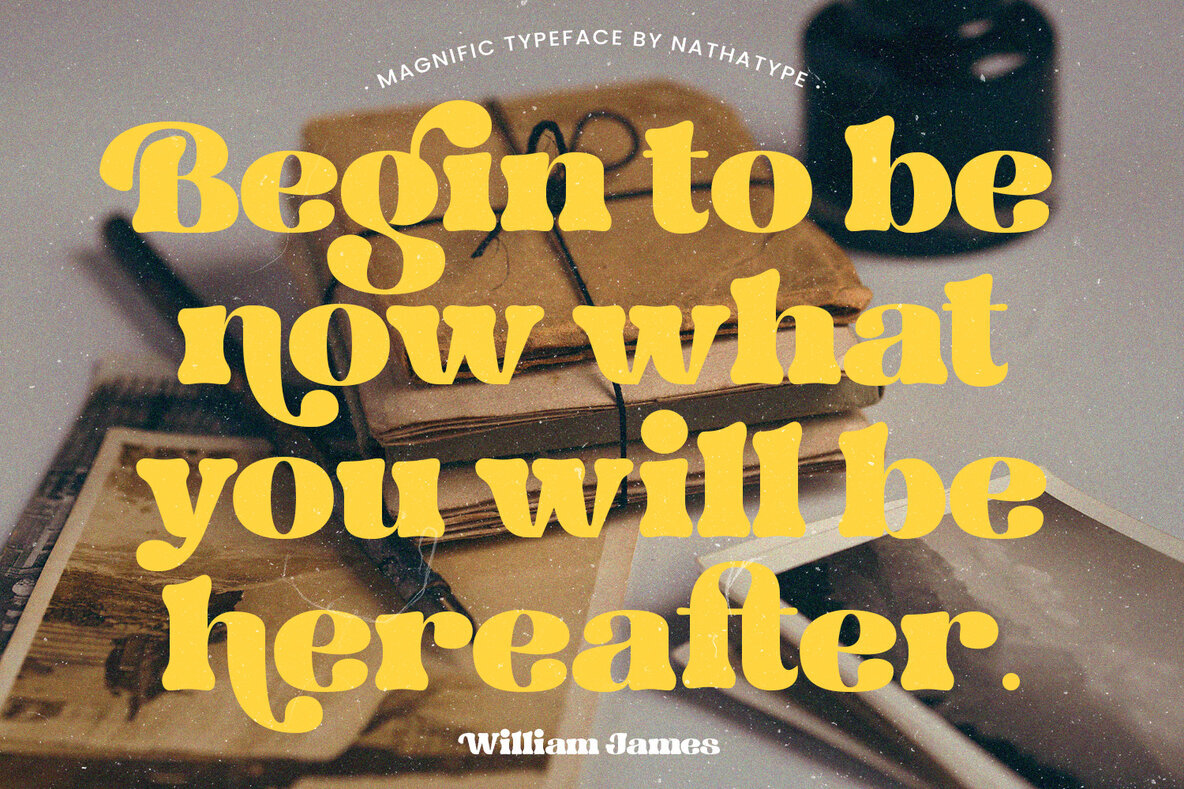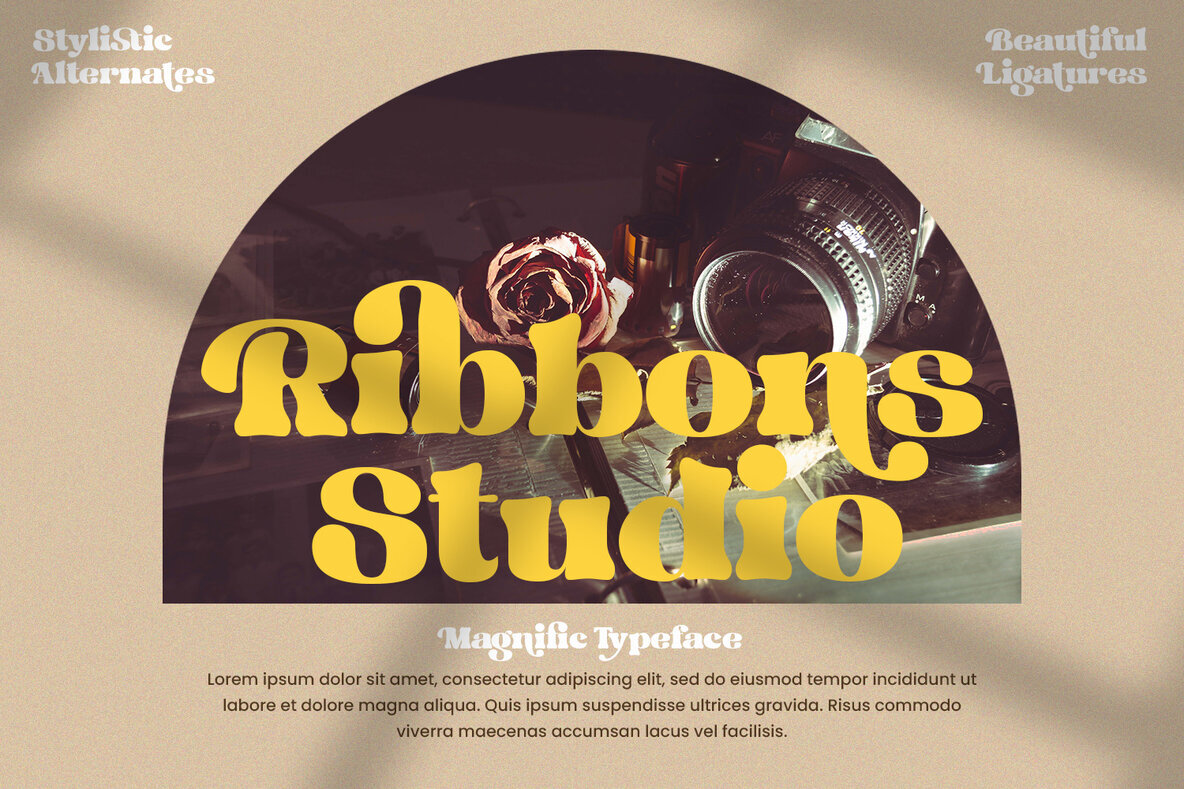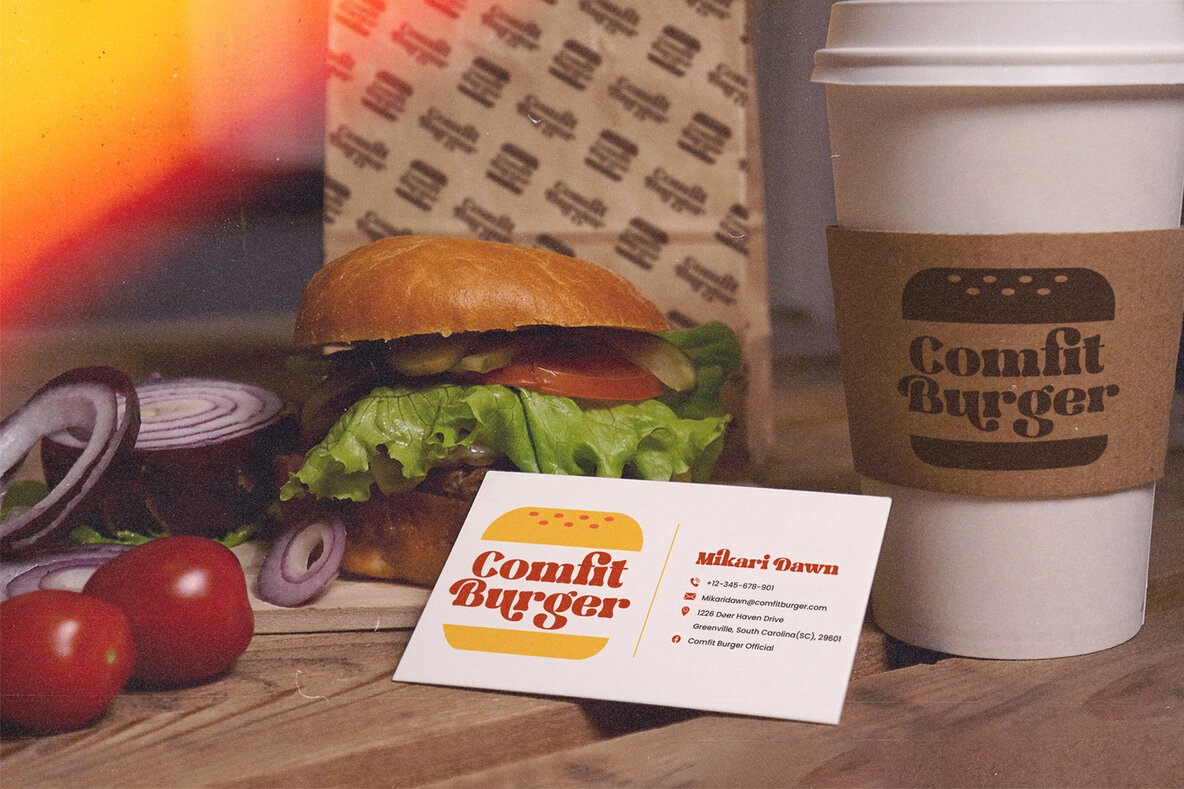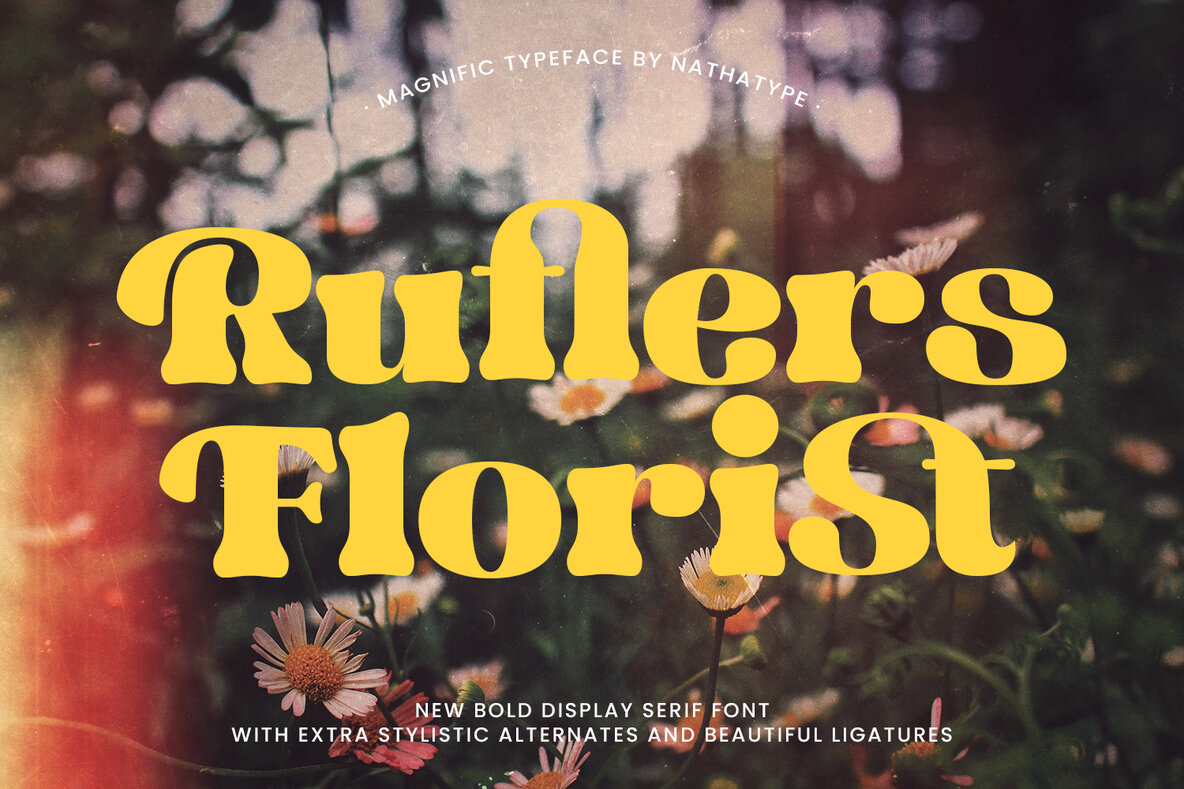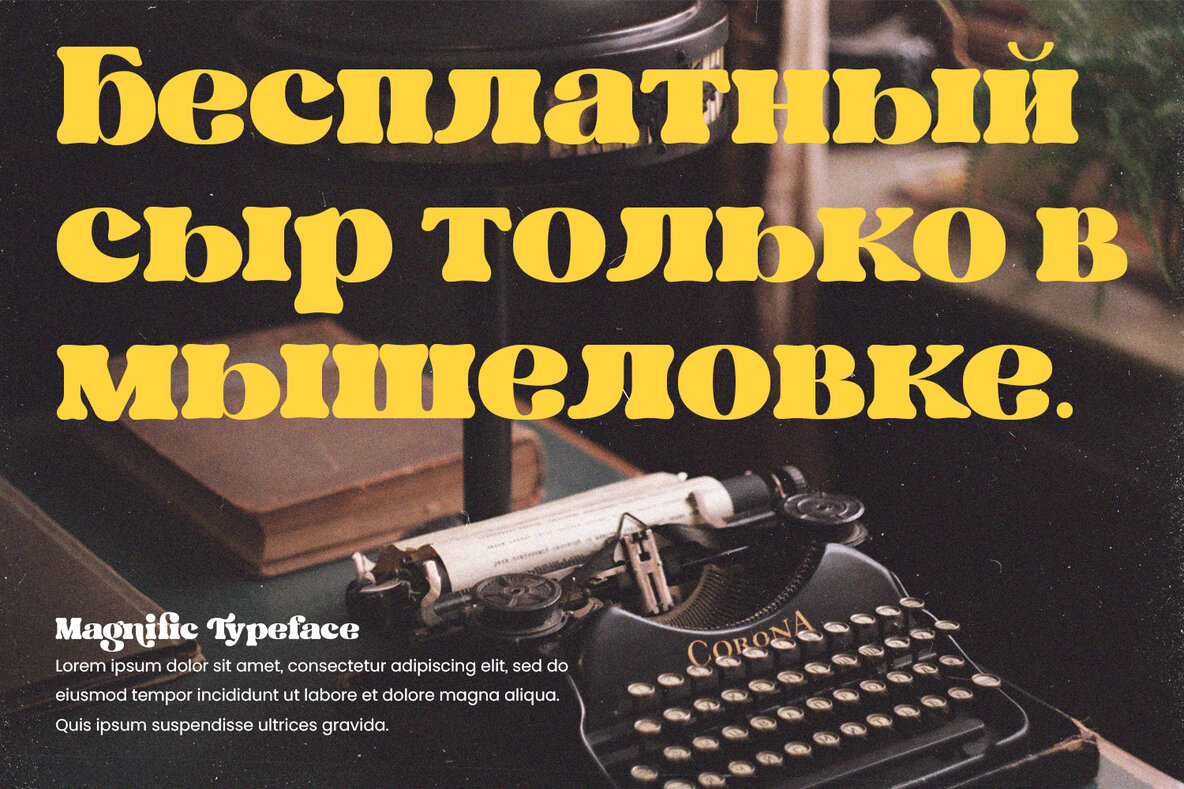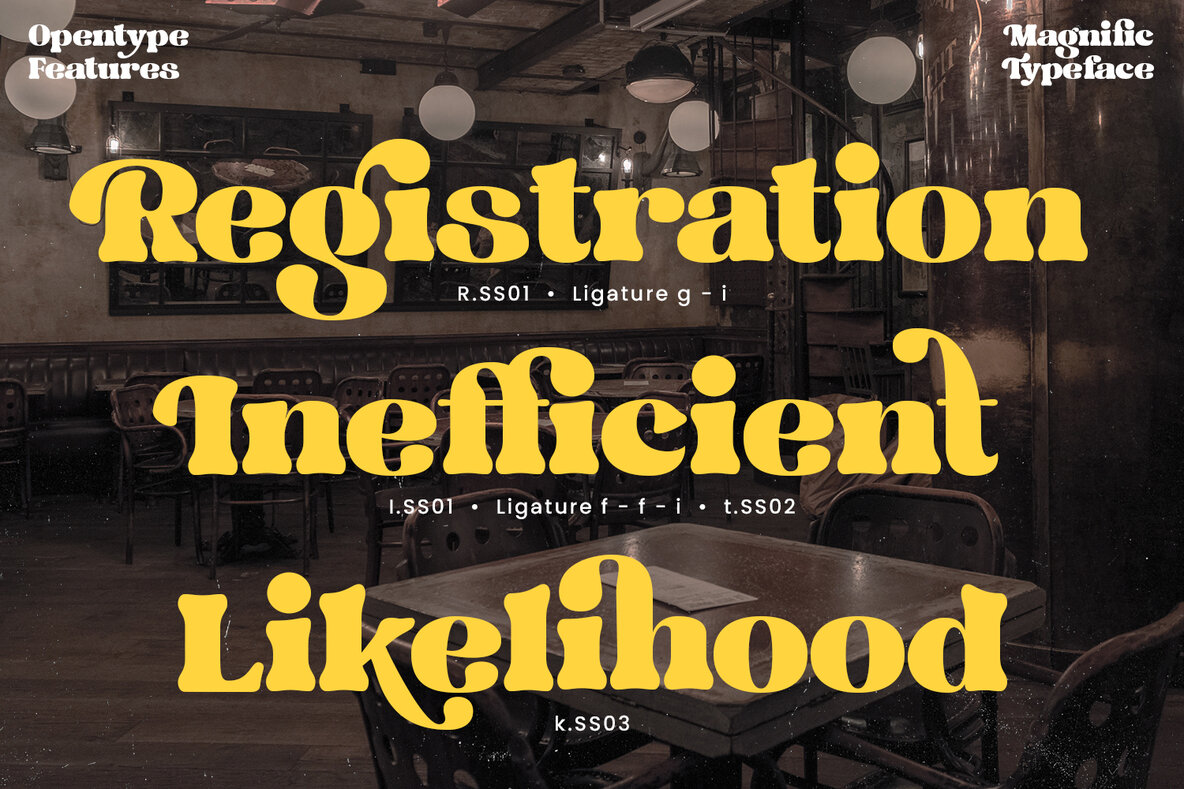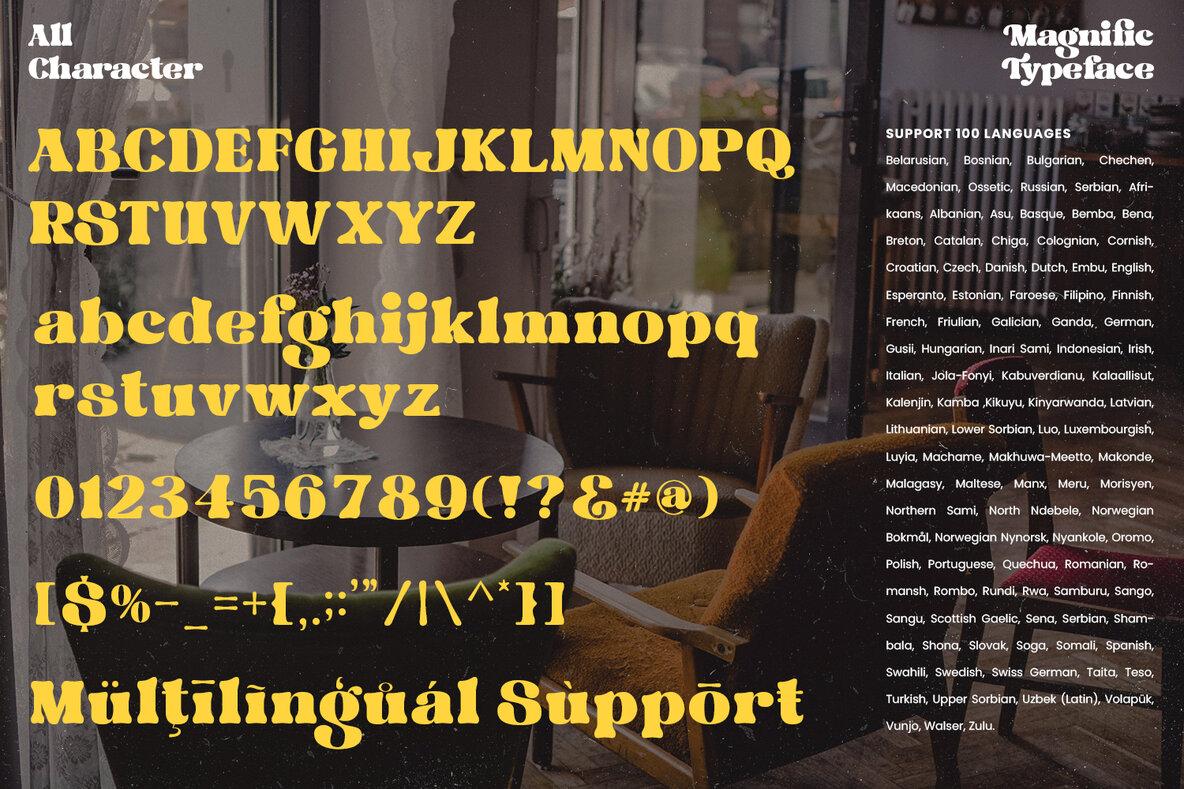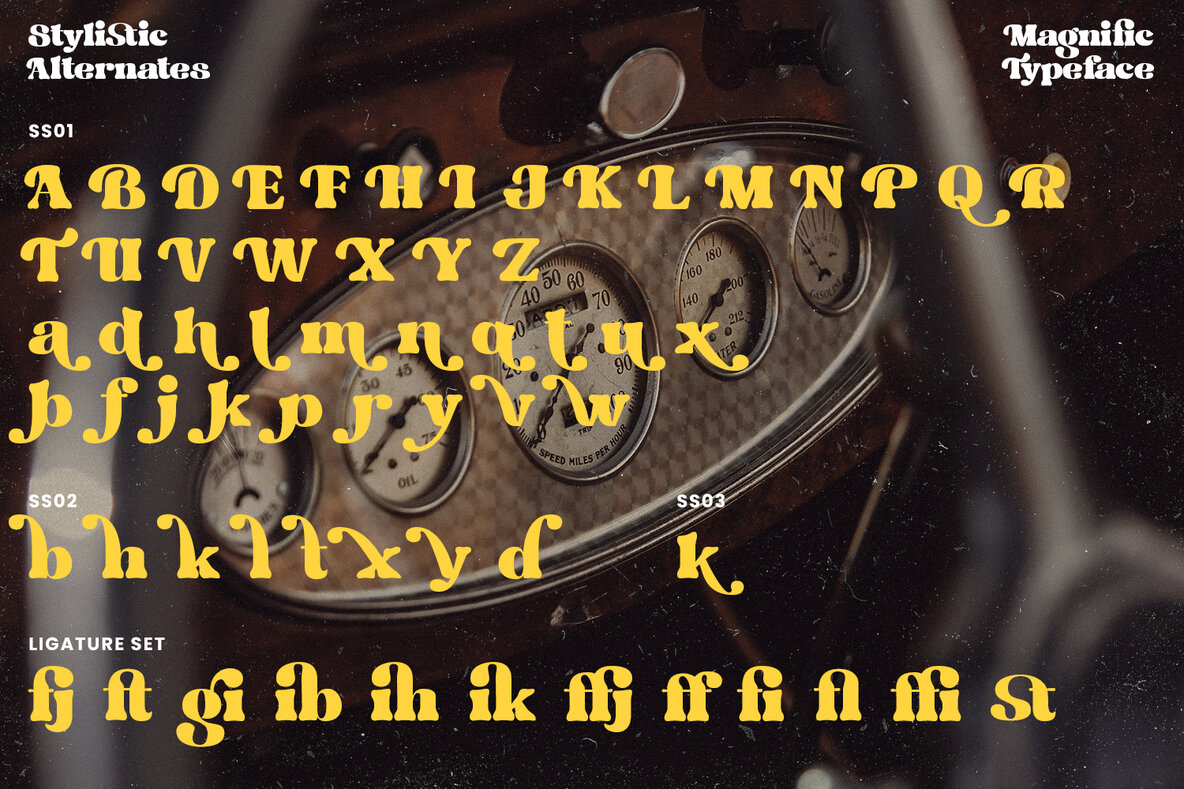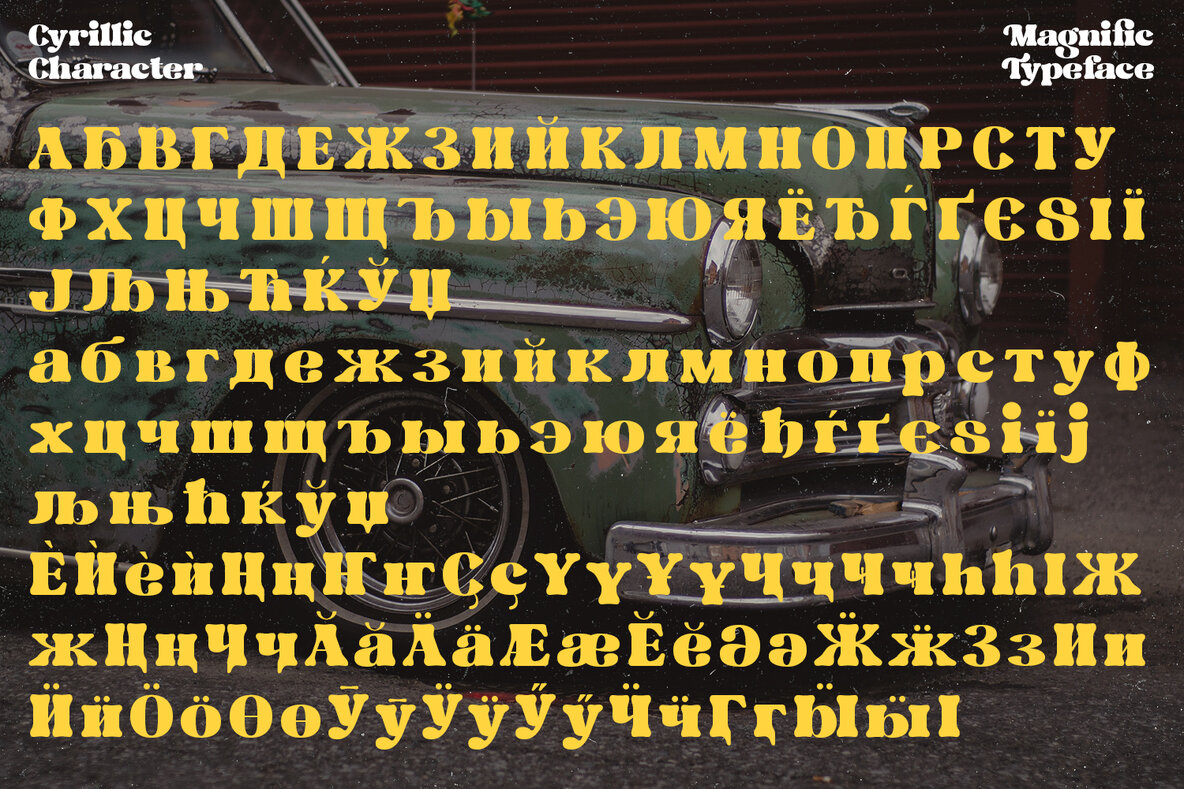
Magnific Font
Magnific Regular
Magnific is a bold display serif font embodying an ideal blend of strength and approachability. Its modern, simple design ensures readability across various applications, making it perfect for both header and body text. Features: This versatile font is suited for a wide range of design projects, including posters, logos, book covers, branding, headings, printed materials, merchandise, quotes, and social media campaigns.Magnific: A Powerful and Welcoming Display Serif